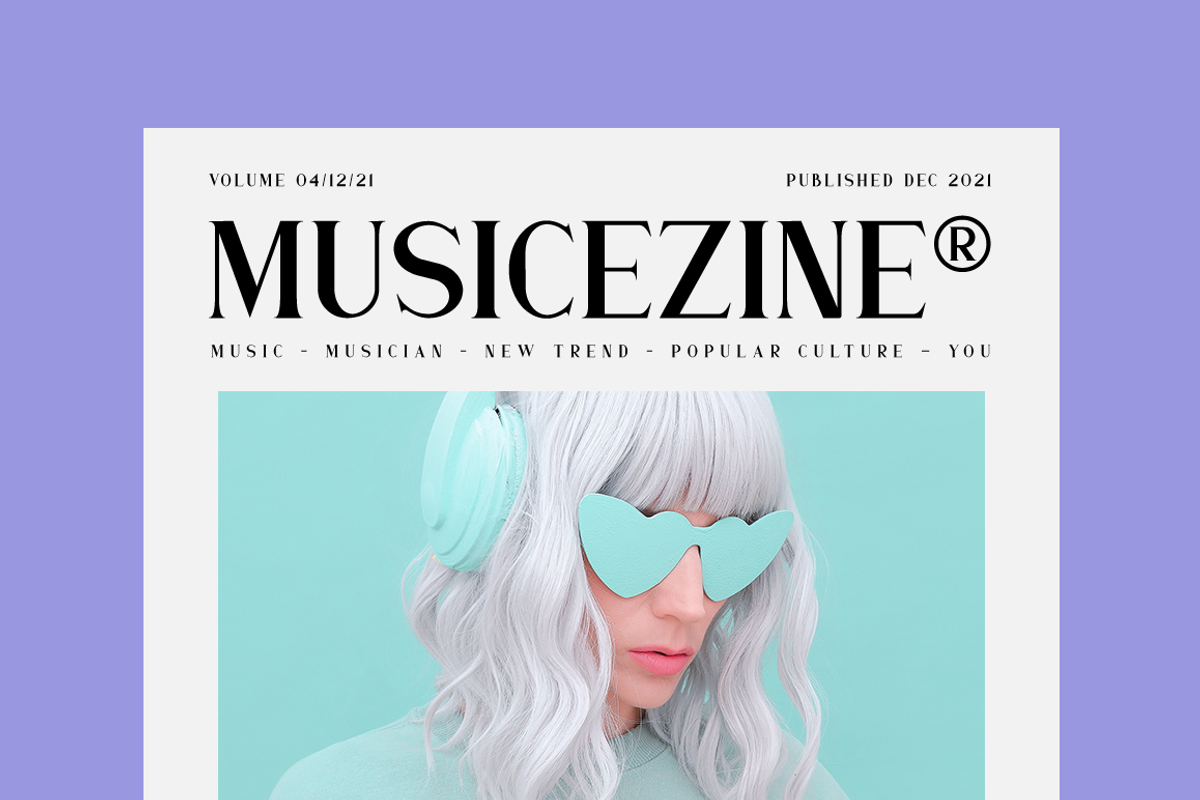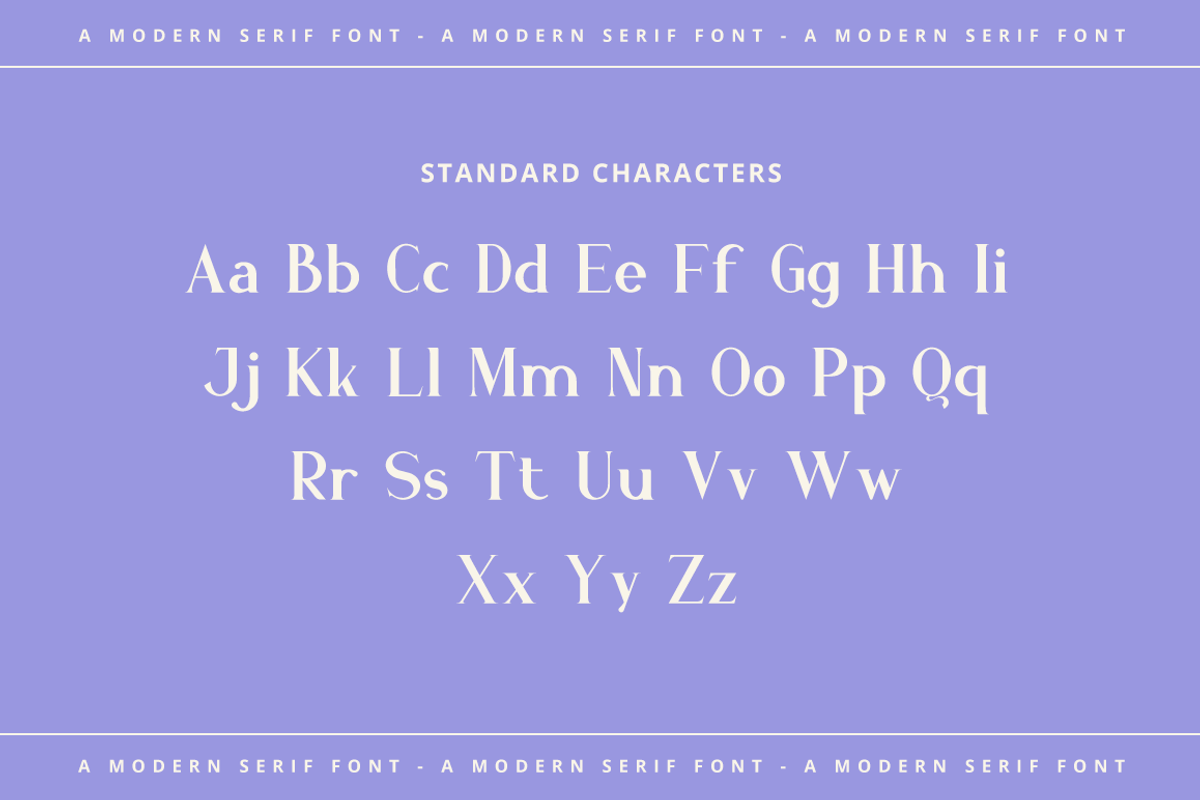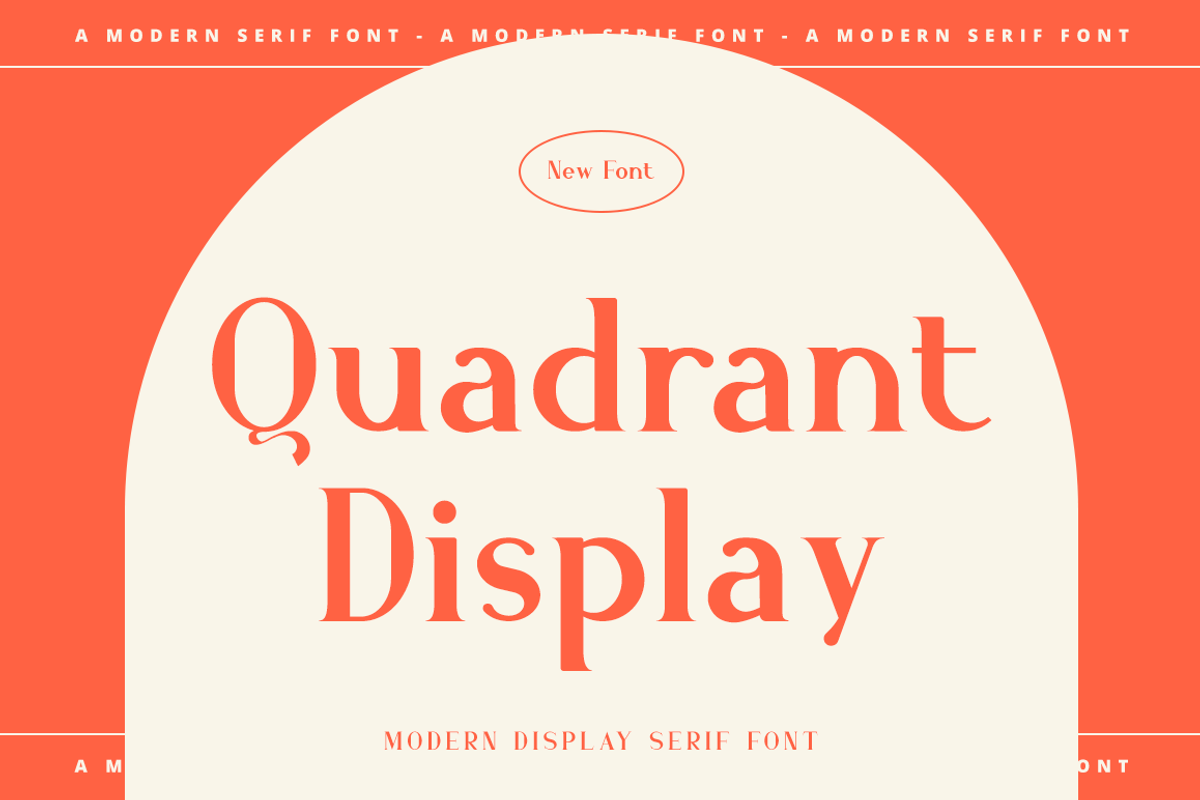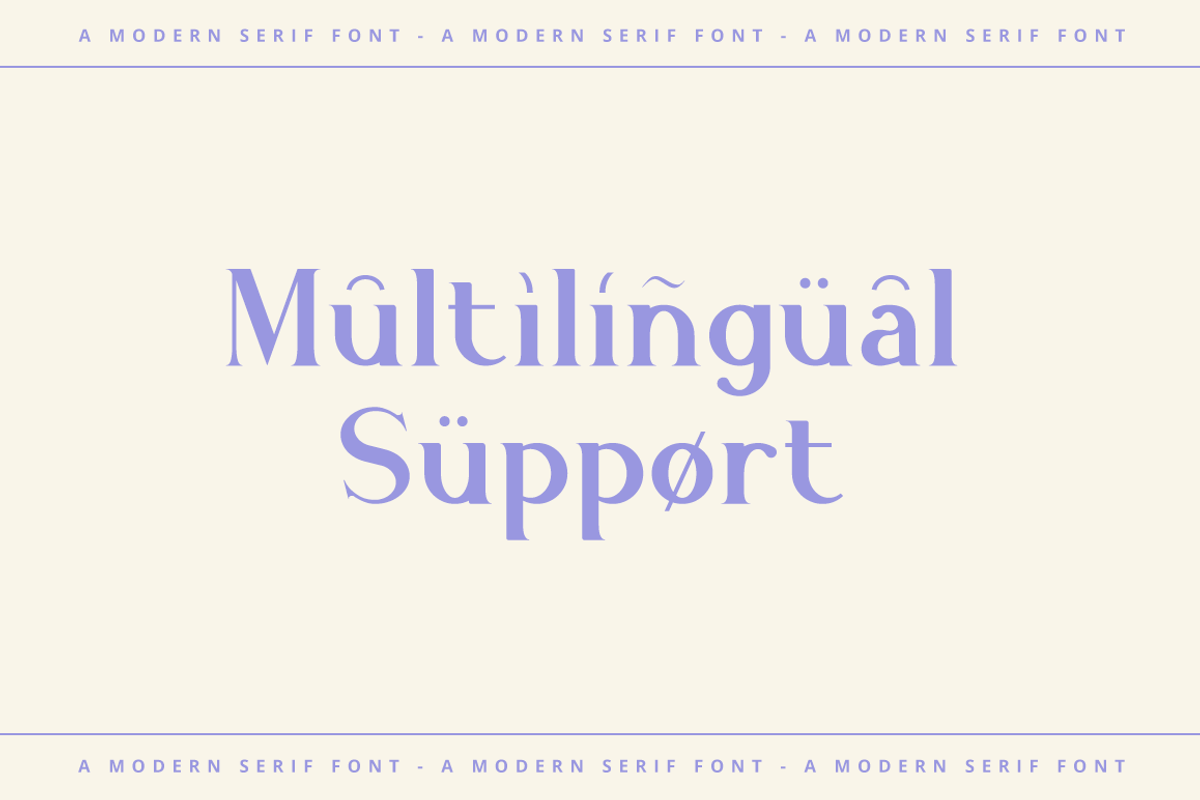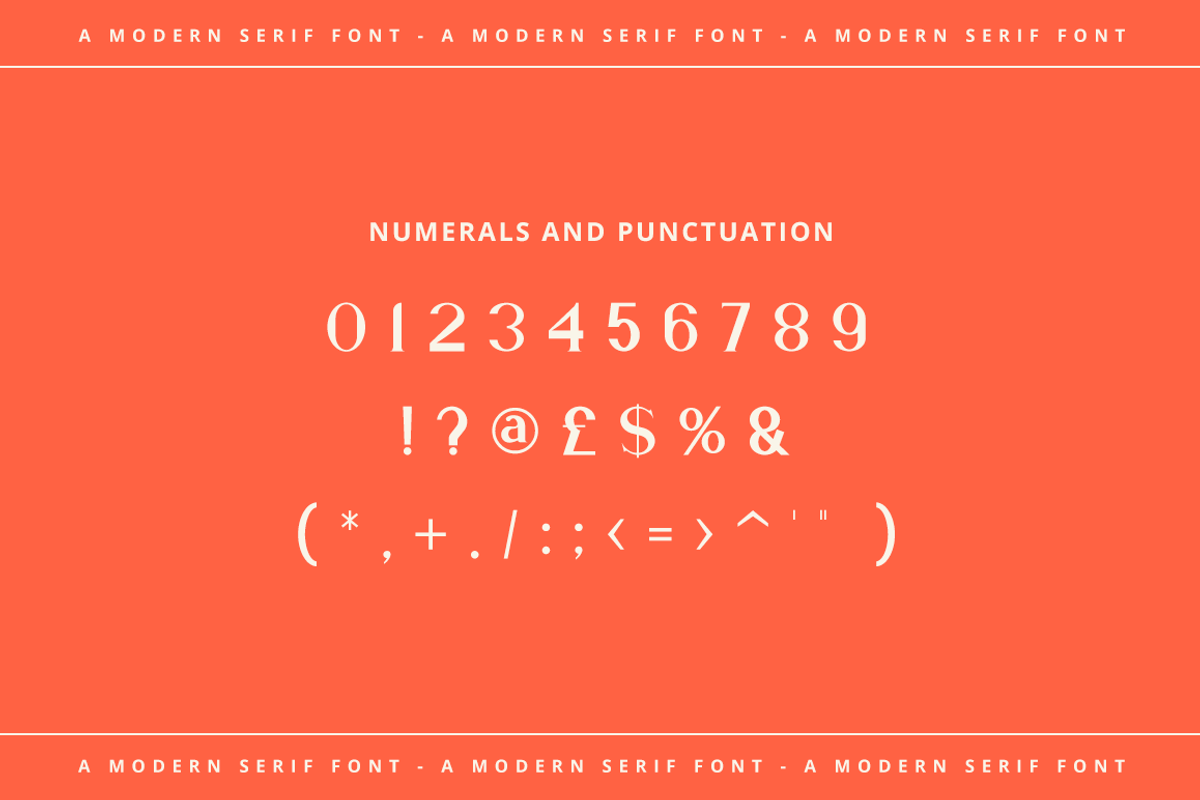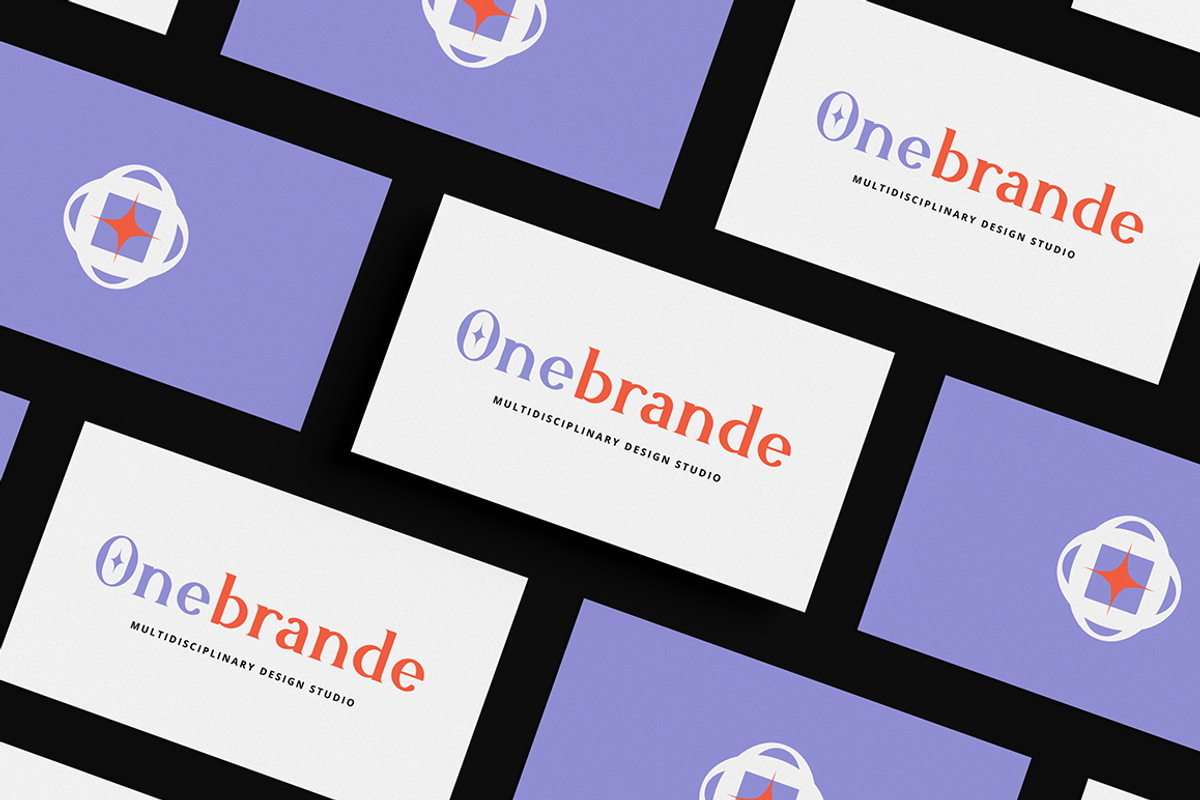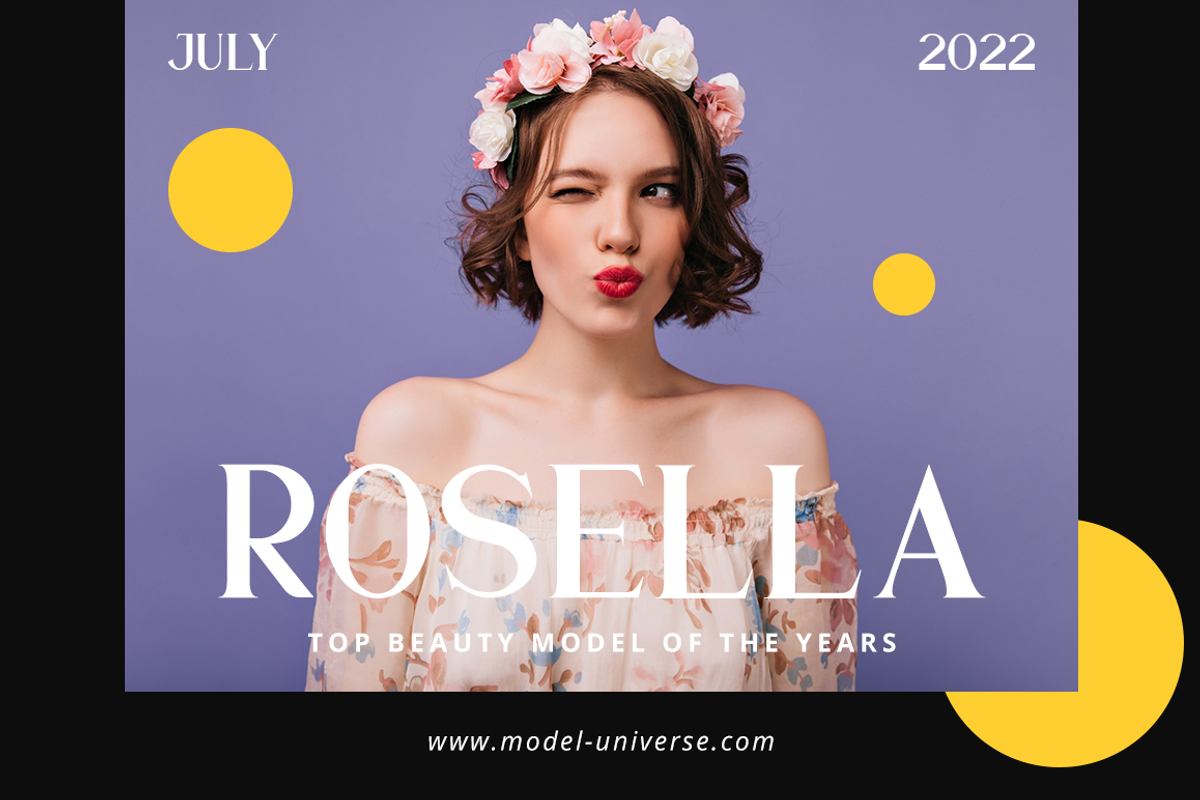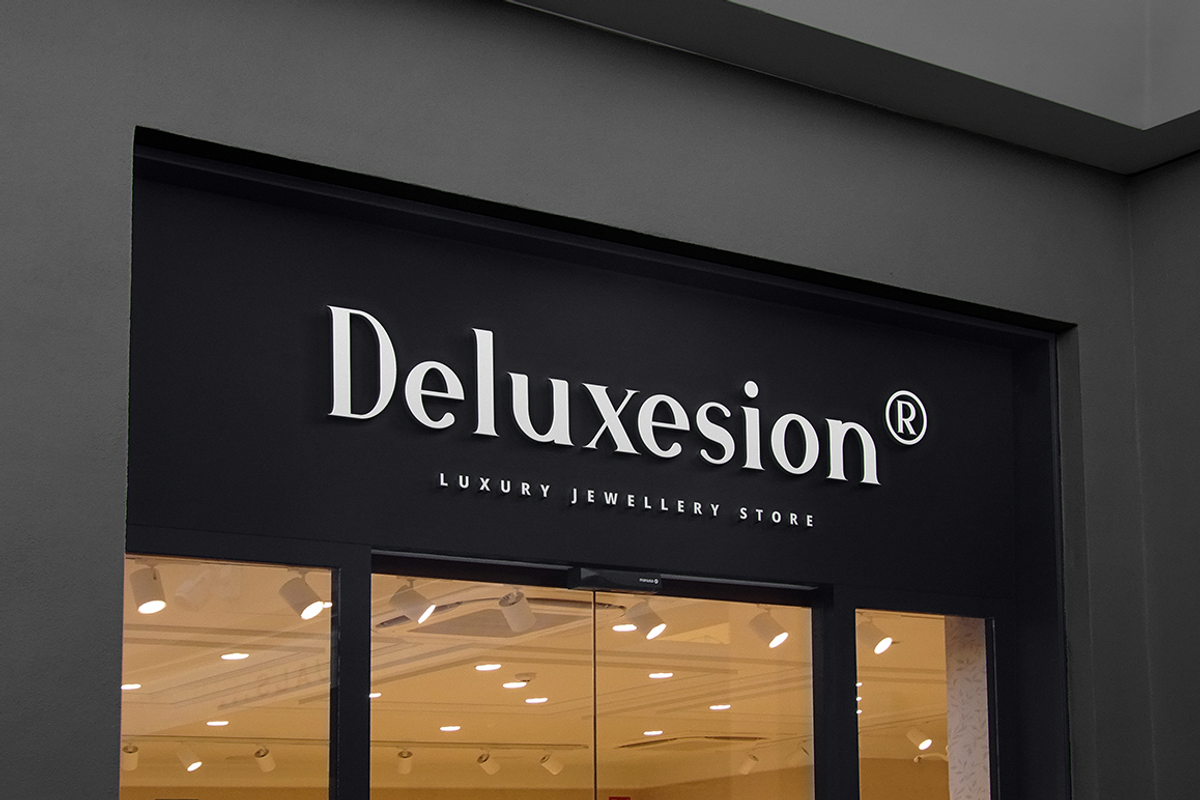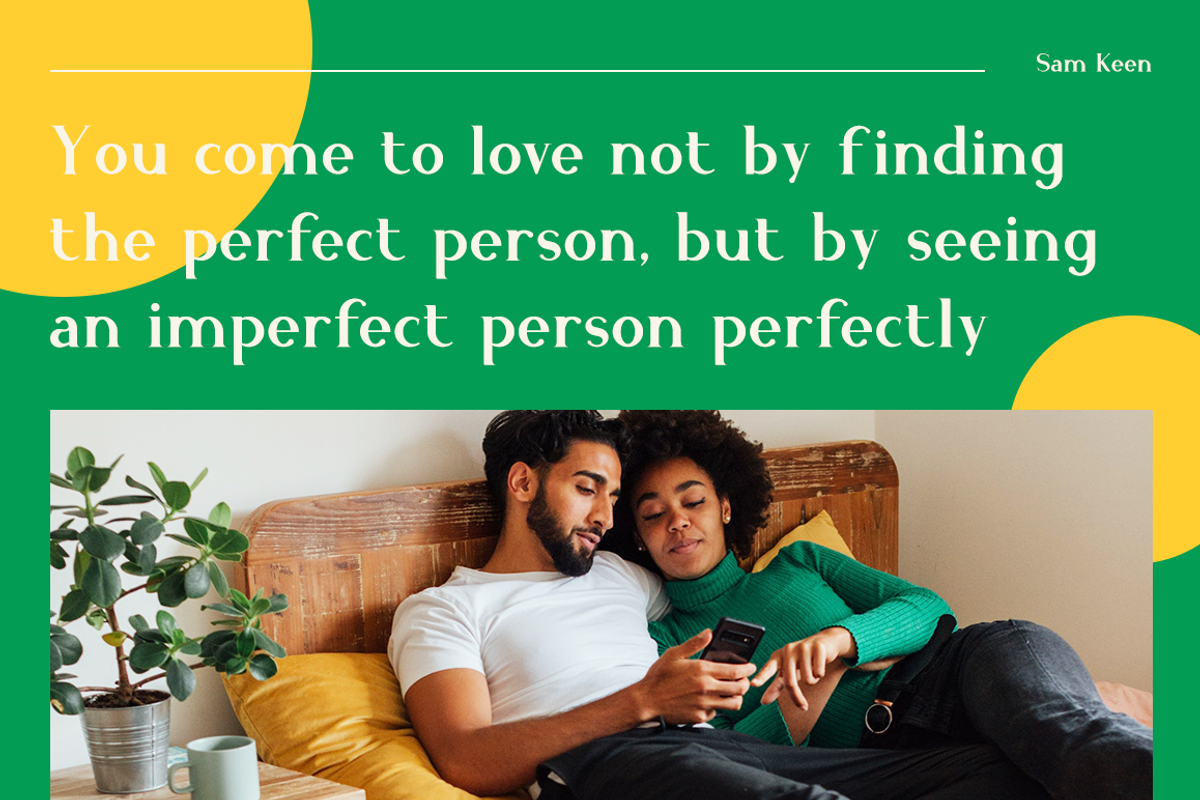
Quadrant Display
Quadrant Display is a distinct, elegant and authentic serif font. Masterfully designed to become a true favorite, this font has the potential to bring each of your creative ideas to the highest level!